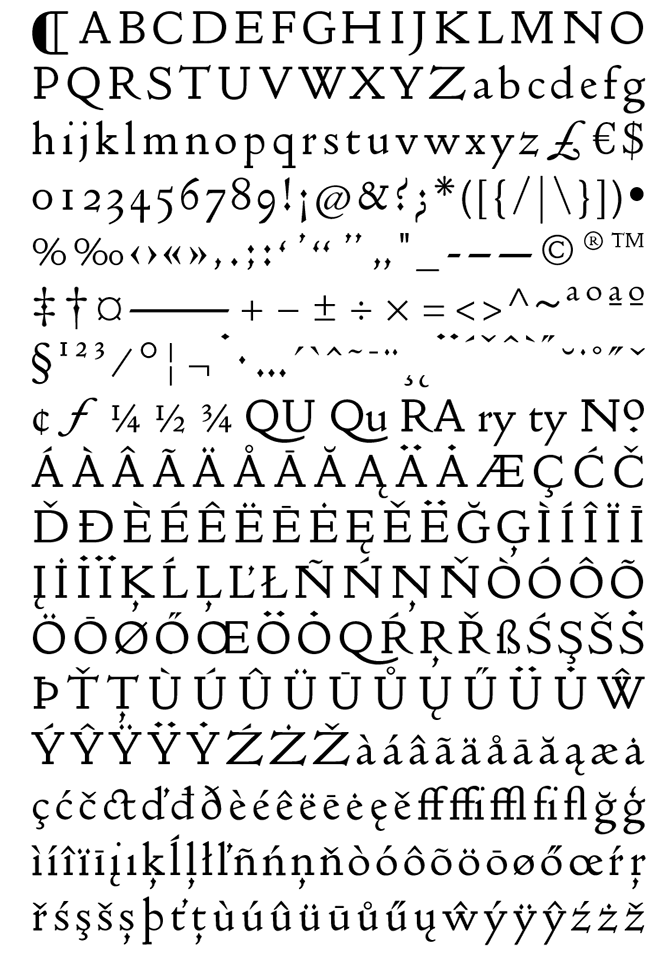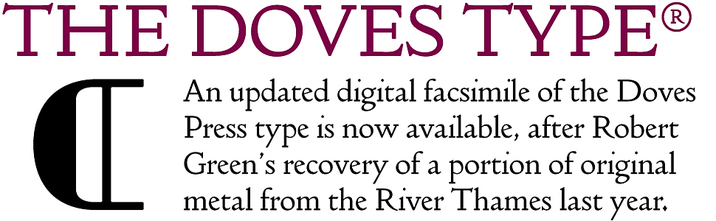
Graphics & Design The Doves Type 2.0 – font August 11, 2015 (The Doves Type 2.0 – font (3) Reviews )Loading... Description Info: http://www.typespec.co.uk/doves-type/ After three years research & drawing from original source material, Robert Green’s digitised facsimile of the lost metal Doves Press Fount of Type, The Doves Type®, is now available to purchase. The updated Doves Type® Regular, released in January 2015, comes after the discovery in the Thames of a portion of the original metal type and replaces the initial Imprint weight which was first available back in 2013. Screenshots Files The Doves Type 2.0/Doves Type 2.0 OTF 5 user/Doves Type 2.0 update.txt (2.05 kB) The Doves Type 2.0/Doves Type 2.0 OTF 5 user/Doves Type 2.0.otf (139.5 kB) The Doves Type 2.0/Doves Type 2.0 OTF 5 user/Typespec EULA 1.3.pdf (102.9 kB) The Doves Type 2.0/Doves Type 2.0 web 100K/READ ME (100K).rtf (0.68 kB) The Doves Type 2.0/Doves Type 2.0 web 100K/doves_type_2.0-demo.html (45.31 kB) The Doves Type 2.0/Doves Type 2.0 web 100K/doves_type_2.0-webfont.eot (51.00 kB) The Doves Type 2.0/Doves Type 2.0 web 100K/doves_type_2.0-webfont.svg (602.8 kB) The Doves Type 2.0/Doves Type 2.0 web 100K/doves_type_2.0-webfont.ttf (144.9 kB) The Doves Type 2.0/Doves Type 2.0 web 100K/doves_type_2.0-webfont.woff (62.94 kB) The Doves Type 2.0/Doves Type 2.0 web 100K/doves_type_2.0-webfont.woff2 (44.52 kB) The Doves Type 2.0/Doves Type 2.0 web 100K/specimen_files/easytabs.js (1.08 kB) The Doves Type 2.0/Doves Type 2.0 web 100K/specimen_files/grid_12-825-55-15.css (4.60 kB) The Doves Type 2.0/Doves Type 2.0 web 100K/specimen_files/specimen_stylesheet.css (7.31 kB) The Doves Type 2.0/Doves Type 2.0 web 100K/stylesheet.css (0.57 kB) Name The Doves Type 2.0 Size 1.21 MB Created on 2015-07-29 23:42:38 Tracker http://109.235.50.166:2710/announce Hash 33fe99de239f96be76c0f6af4da01b3ad2481fcf Files ※ See Description Download DovesfontType 0 comment TwitterRedditEmail mac torrents Mac Torrents - Torrents for Mac. Free Apps, Games & Plugins. Apple Final Cut Pro & Logic Pro X, Adobe Photoshop, Microsoft Office, Pixel Film Studios, previous post WhatsApp Pocket 4.5.2 next post Cookie 4.3.1